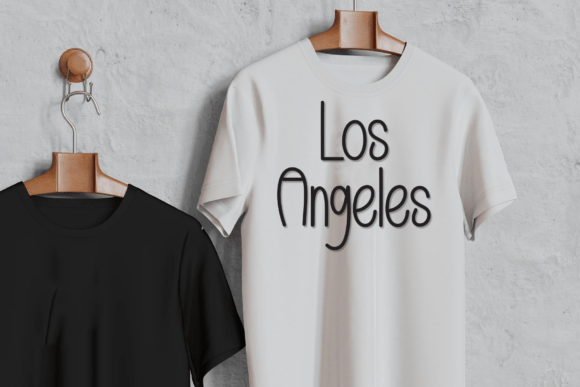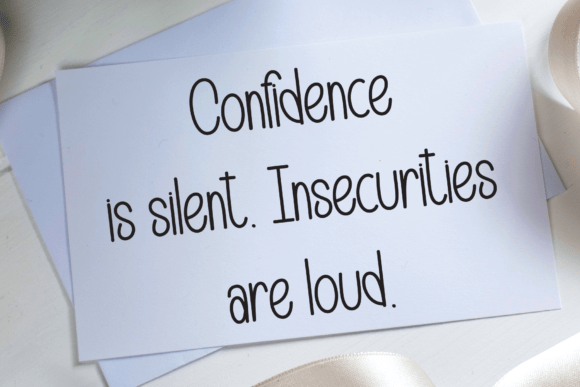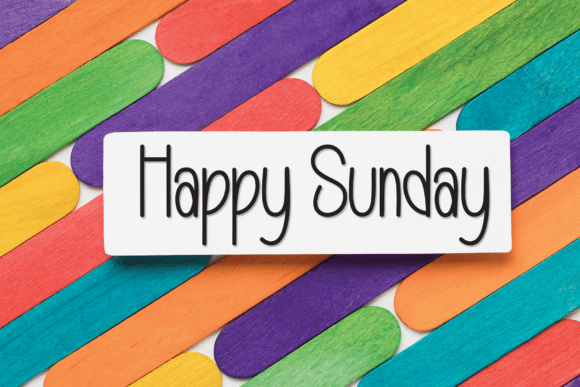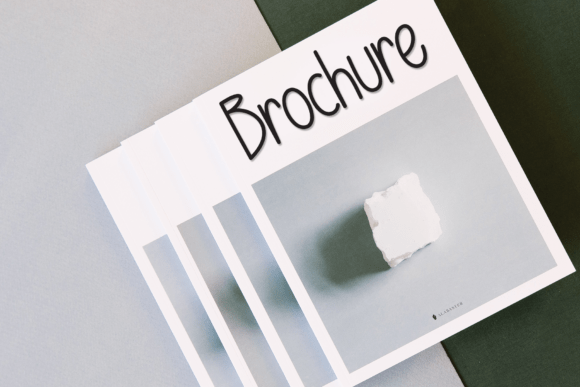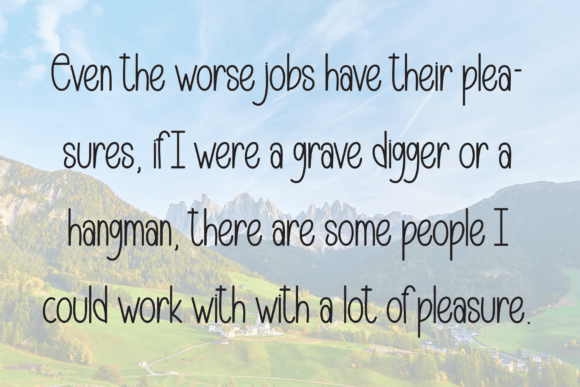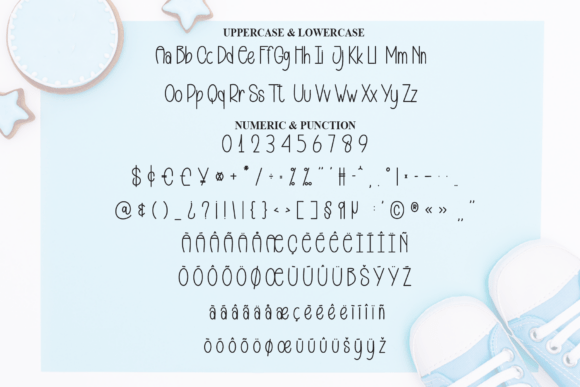
Baby Written Font: Adding a Touch of Whimsy to Your Designs
Are you looking for a font that can add a dash of fun and friendliness to your design projects? Look no further than the Baby Written Font, a delightful and cordial handwritten display font that radiates charm and warmth. This distinctive font is perfect for crafters and designers who want to create unique and eye-catching designs that stand out from the crowd.
The Characteristics of Baby Written Font
The Baby Written Font is a handwritten display font that exudes a sense of joy and playfulness. Its adorable nature and joyful aesthetic create an enchanting blend that is perfect for making your creations stand out. The font features:
- Unique and Whimsical Design: The Baby Written Font has a distinctive and whimsical design that sets it apart from other fonts. Its playful and fun nature makes it perfect for adding a touch of personality to your designs.
- Handwritten Style: The font has a beautiful handwritten style that gives it a personal and friendly touch. It’s perfect for creating designs that feel approachable and relatable.
- Adorable and Joyful Aesthetic: The Baby Written Font has an adorable and joyful aesthetic that is sure to delight. Its sweet and charming design makes it perfect for creating designs that are both fun and engaging.
Uses of Baby Written Font
The Baby Written Font is a versatile font that can be used in a variety of design projects. Here are some of the ways you can use this delightful font:
- Wedding Invitations: The Baby Written Font is perfect for creating beautiful and unique wedding invitations. Its whimsical design and handwritten style make it a great choice for couples who want to add a touch of personality to their wedding stationery.
- Cards and Greeting Cards: The font is also great for creating cards and greeting cards. Its playful and fun nature makes it perfect for birthdays, holidays, and other special occasions.
- Design Projects: The Baby Written Font can be used in a variety of design projects, from branding and packaging to posters and flyers. Its unique and whimsical design makes it a great choice for designers who want to add a touch of personality to their designs.
Benefits of Using Baby Written Font
There are many benefits to using the Baby Written Font in your design projects. Here are some of the advantages of using this delightful font:
- Unique and Eye-Catching Designs: The Baby Written Font is a great way to create unique and eye-catching designs that stand out from the crowd. Its whimsical design and handwritten style make it perfect for designers who want to add a touch of personality to their designs.
- Easy to Read and Understand: The font is easy to read and understand, making it perfect for designs that require a clear and concise message.
- Versatile and Flexible: The Baby Written Font is a versatile font that can be used in a variety of design projects. Its flexible design makes it perfect for designers who want to experiment with different styles and formats.
Tips for Using Baby Written Font
Here are some tips for using the Baby Written Font in your design projects:
- Use it Sparingly: The Baby Written Font is a bold and playful font, so it’s best to use it sparingly. Use it for headings and titles, and pair it with a simpler font for body text.
- Experiment with Colors and Textures: The font looks great in a variety of colors and textures. Experiment with different colors and textures to find the perfect combination for your design.
- Pair it with Other Fonts: The Baby Written Font can be paired with other fonts to create a unique and eye-catching design. Experiment with different font combinations to find the perfect pairing.
The Baby Written Font is a delightful and cordial handwritten display font that radiates charm and friendliness. Its unique and whimsical design makes it perfect for designers and crafters who want to add a touch of personality to their designs. With its adorable nature and joyful aesthetic, this font is sure to delight and engage your audience. So why not give it a try and see how it can add a touch of whimsy to your designs?